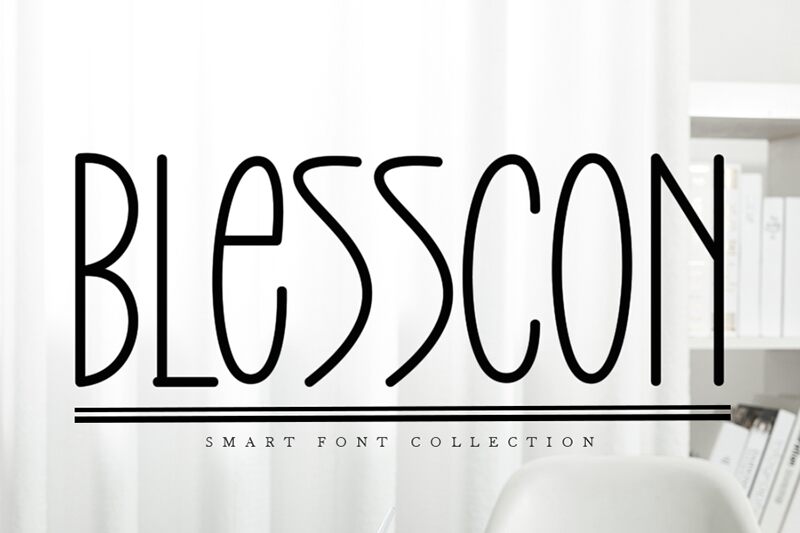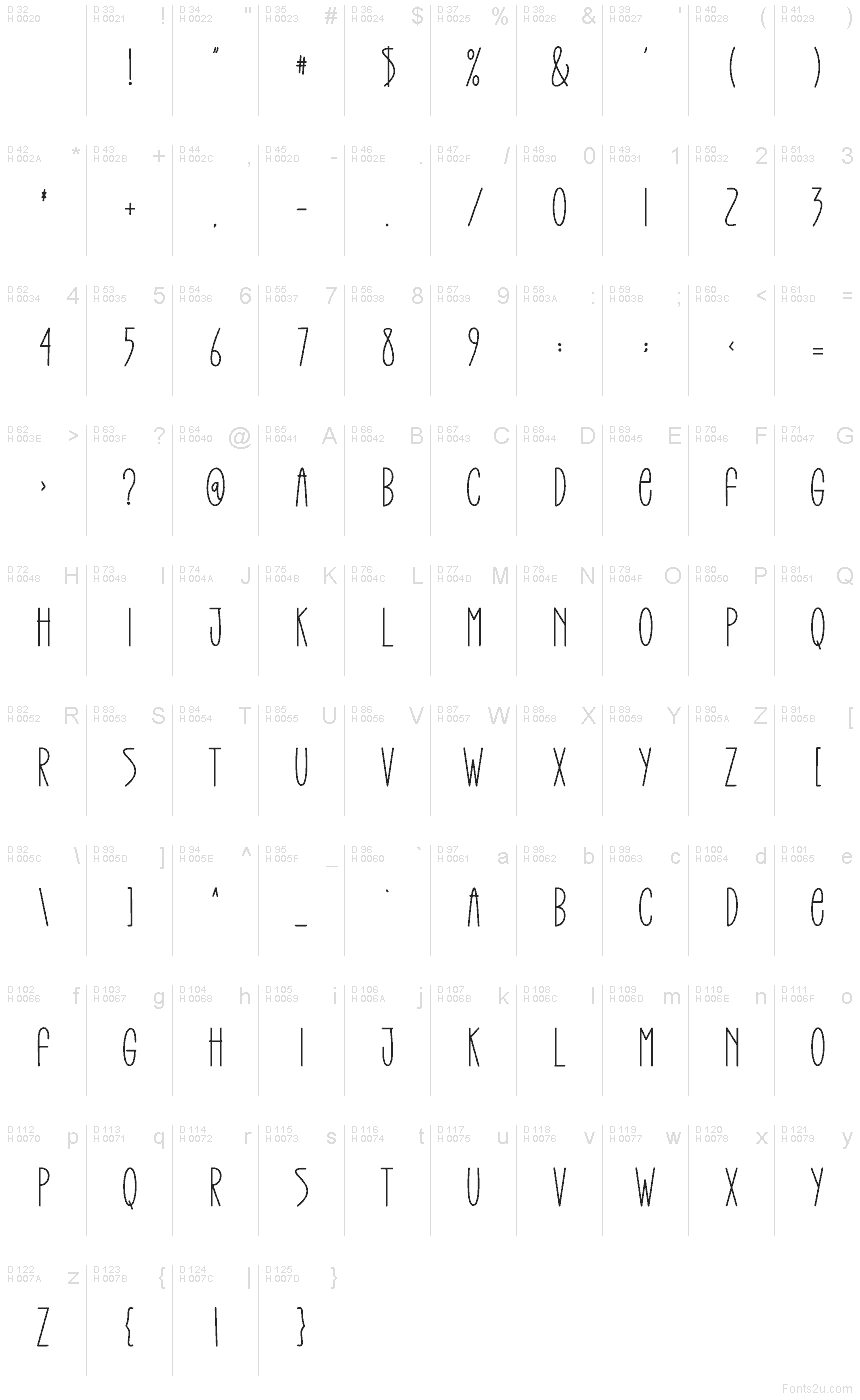
Blesscon
Blesscon font, by Creatype Designer, is a free handwritten font with the graceful structure of a light condensed font and elongated letter strokes. There’s an art deco influence on how the curves are shaped as well as on the geometric proportions. This versatile font brings modern vibes to your project while preserving a perfectly classy calligraphic look.